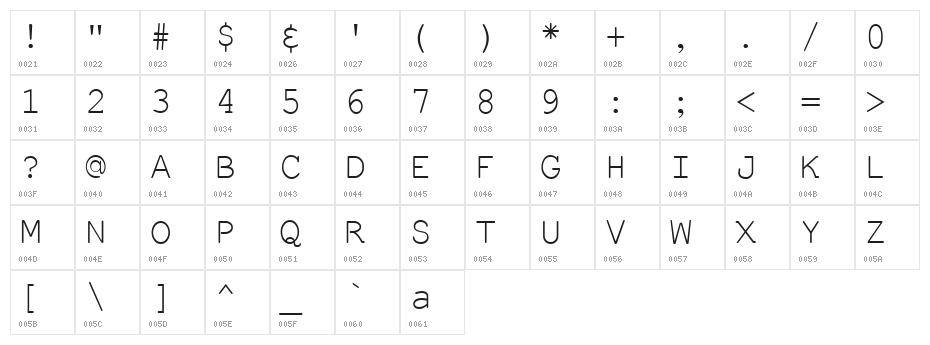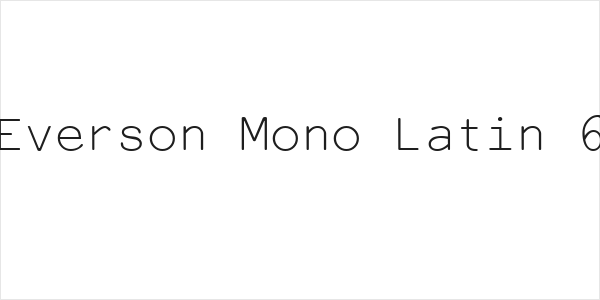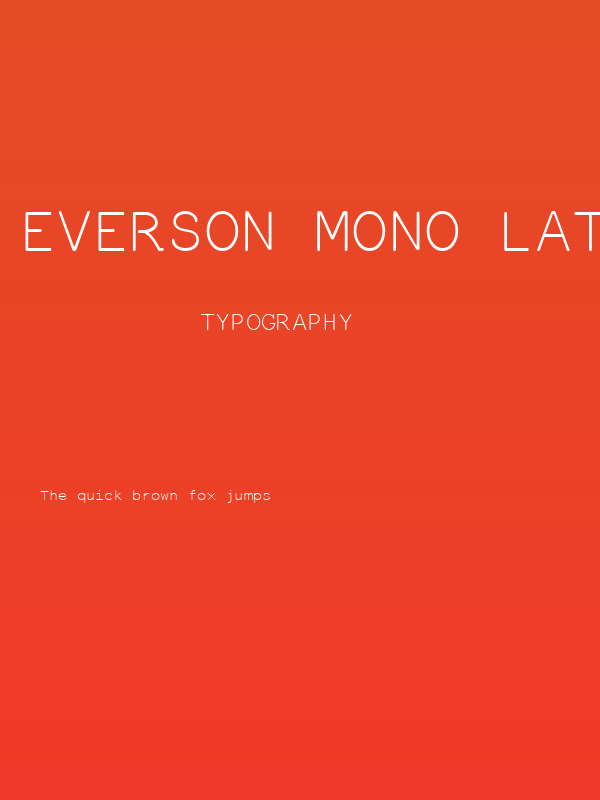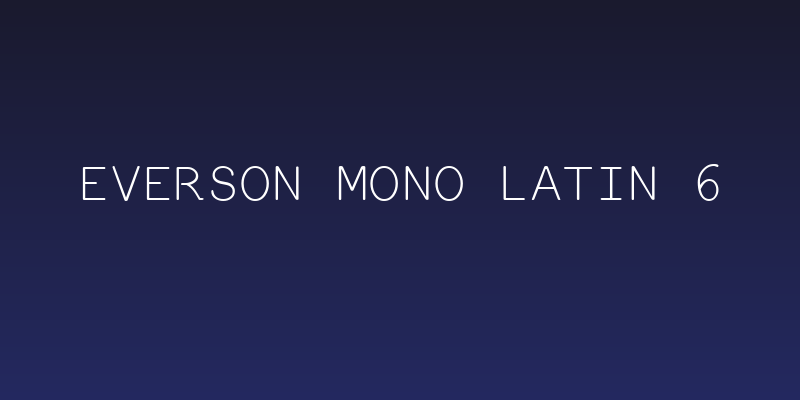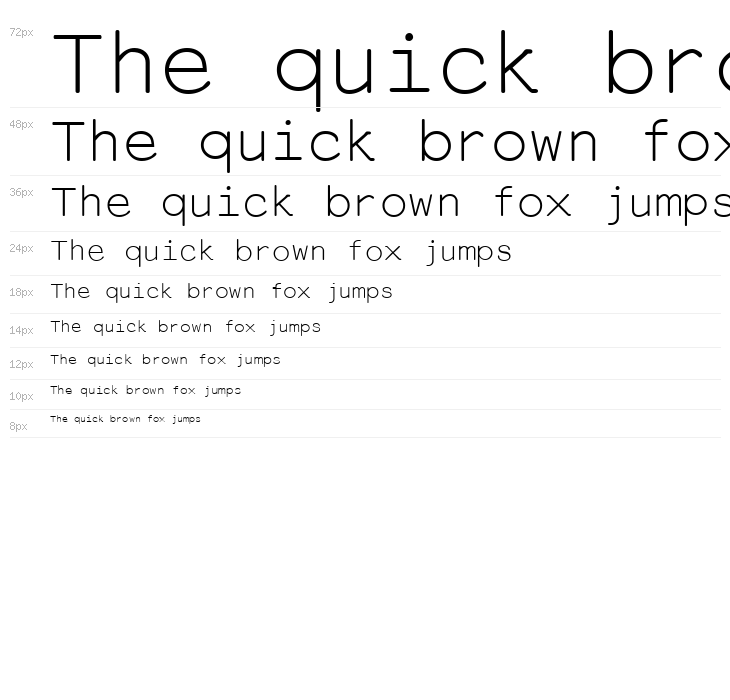
Everson Mono Latin 6 Font
Everson Mono Latin 6 Description
This typeface is a monospaced font characterized by its clean and minimalist design. Each character is evenly spaced, providing a uniform appearance that is ideal for coding and tabular data. The font features a modern aesthetic with geometric shapes and consistent line thickness, making it highly legible. The uppercase letters are slightly taller than the lowercase, and the numerals are clear and distinct. Special characters are well-defined, adding to the font's versatility.
| Use Case | Coding, Technical documentation, Tabular data |
| Proposed Projects | Ideal for coding environments, technical documentation, and any project requiring precise alignment of text. |